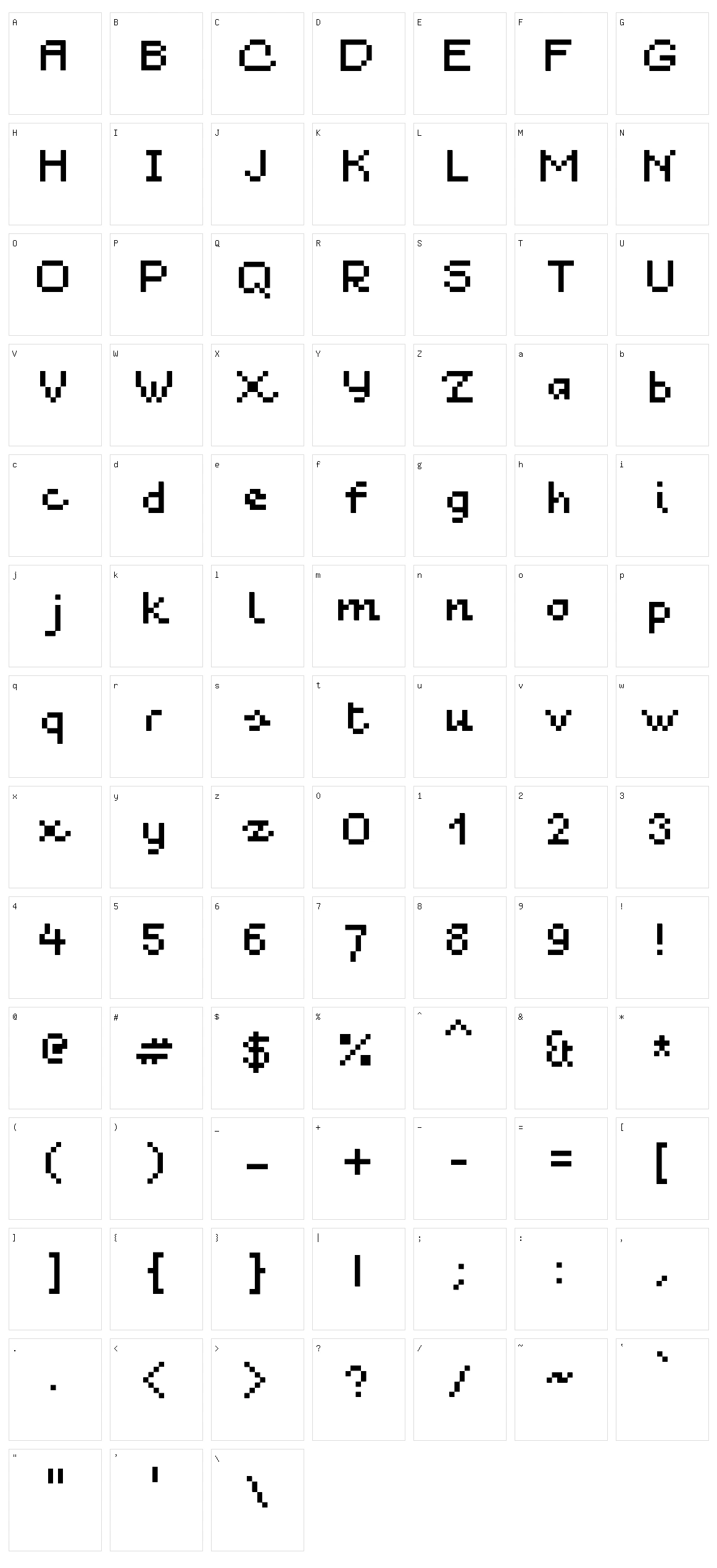
Blau
Designed by: Ini
It looks best in fontsize 7pt/9px, hence the name. Make sure to turn Anti-
Aliasing off as it is a pixel font.
Blau is the German word for blue, 7pt indicates the size it's best used at. As simple